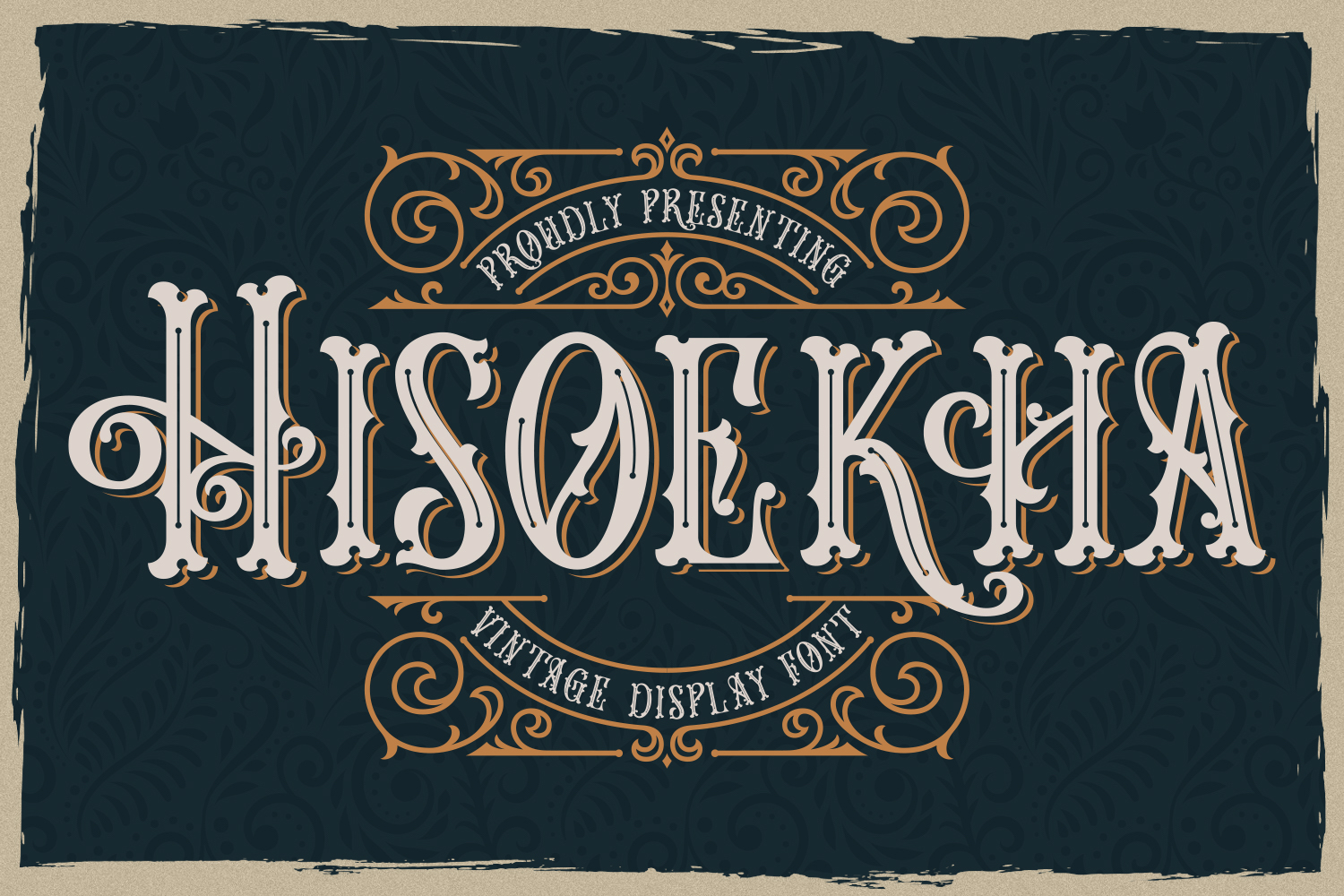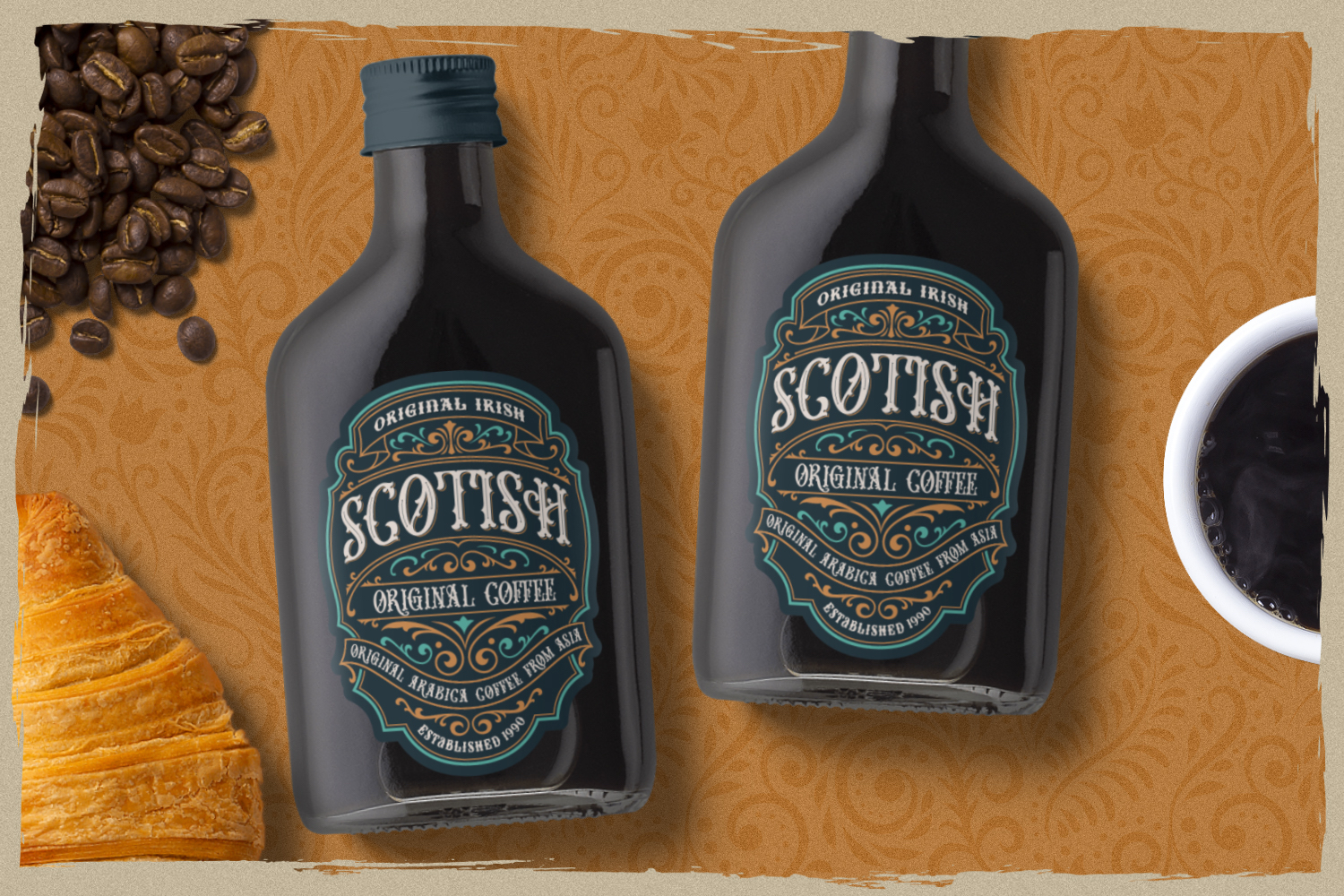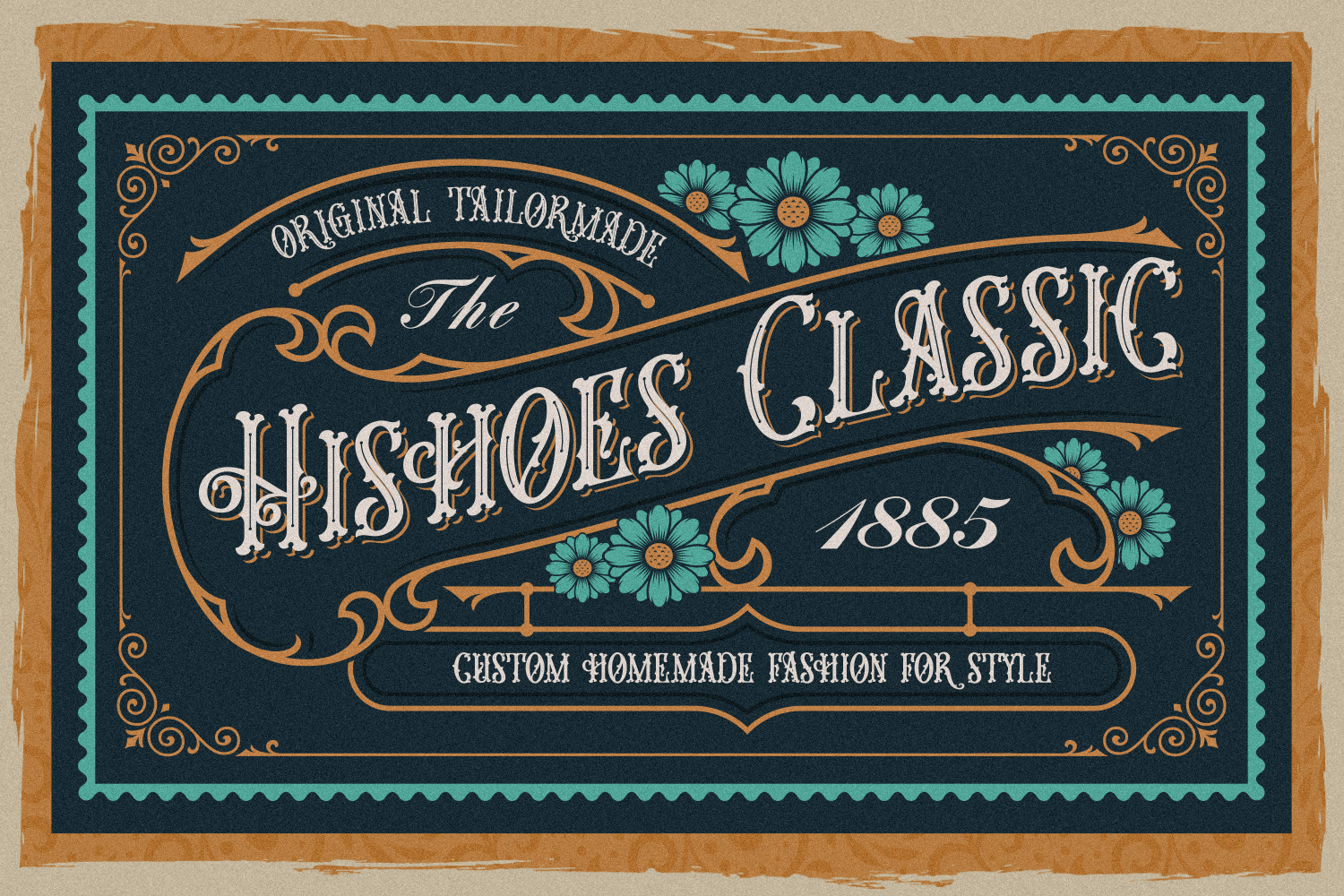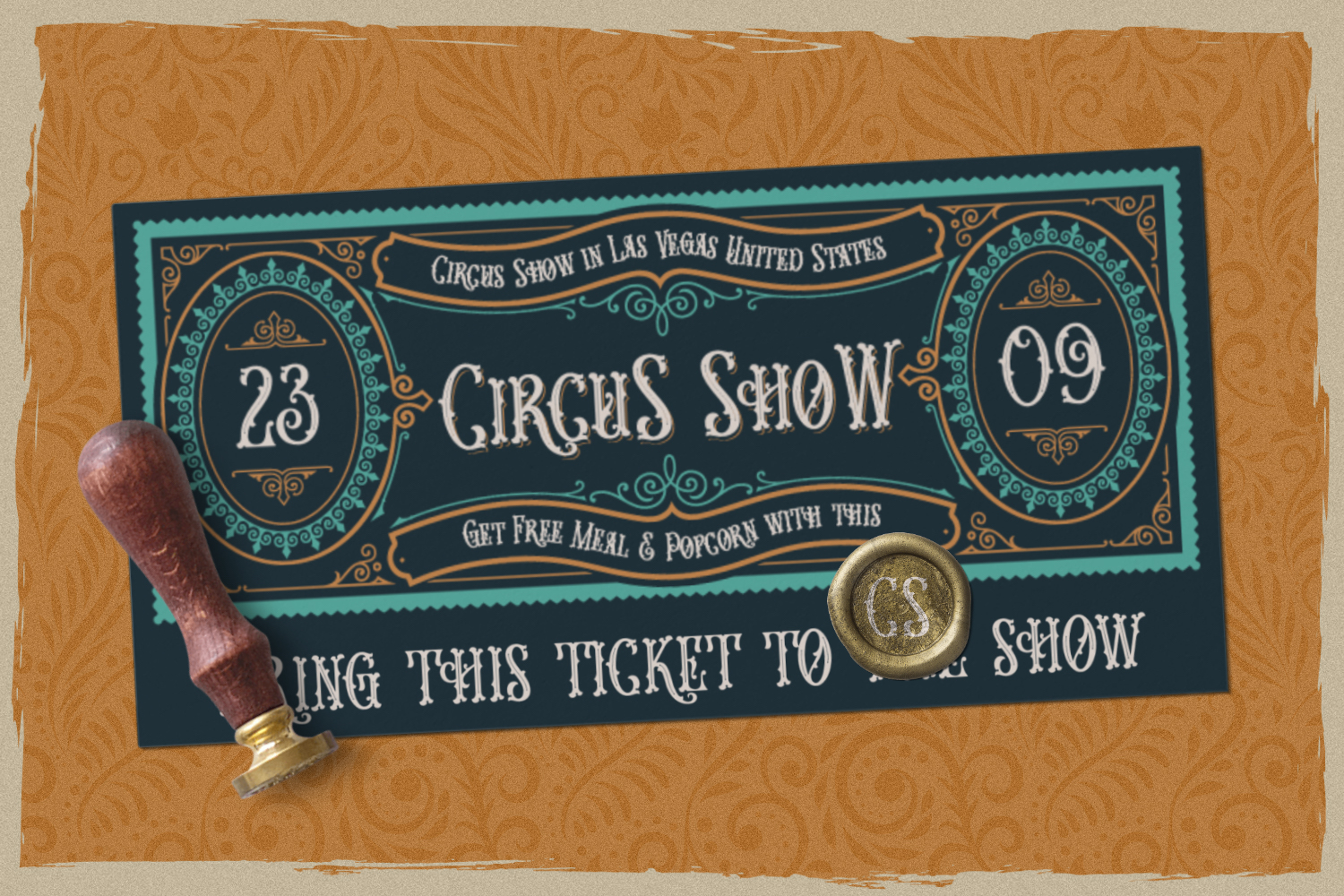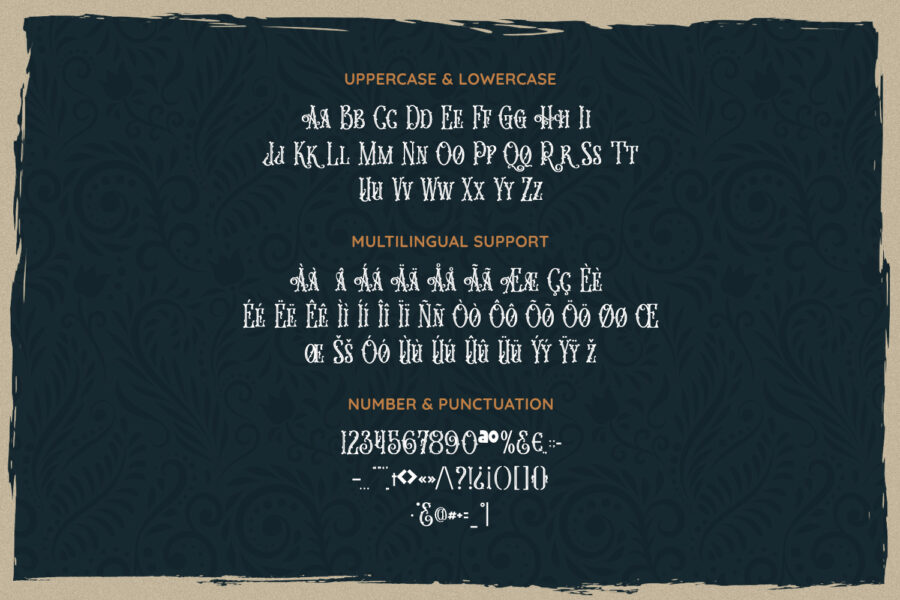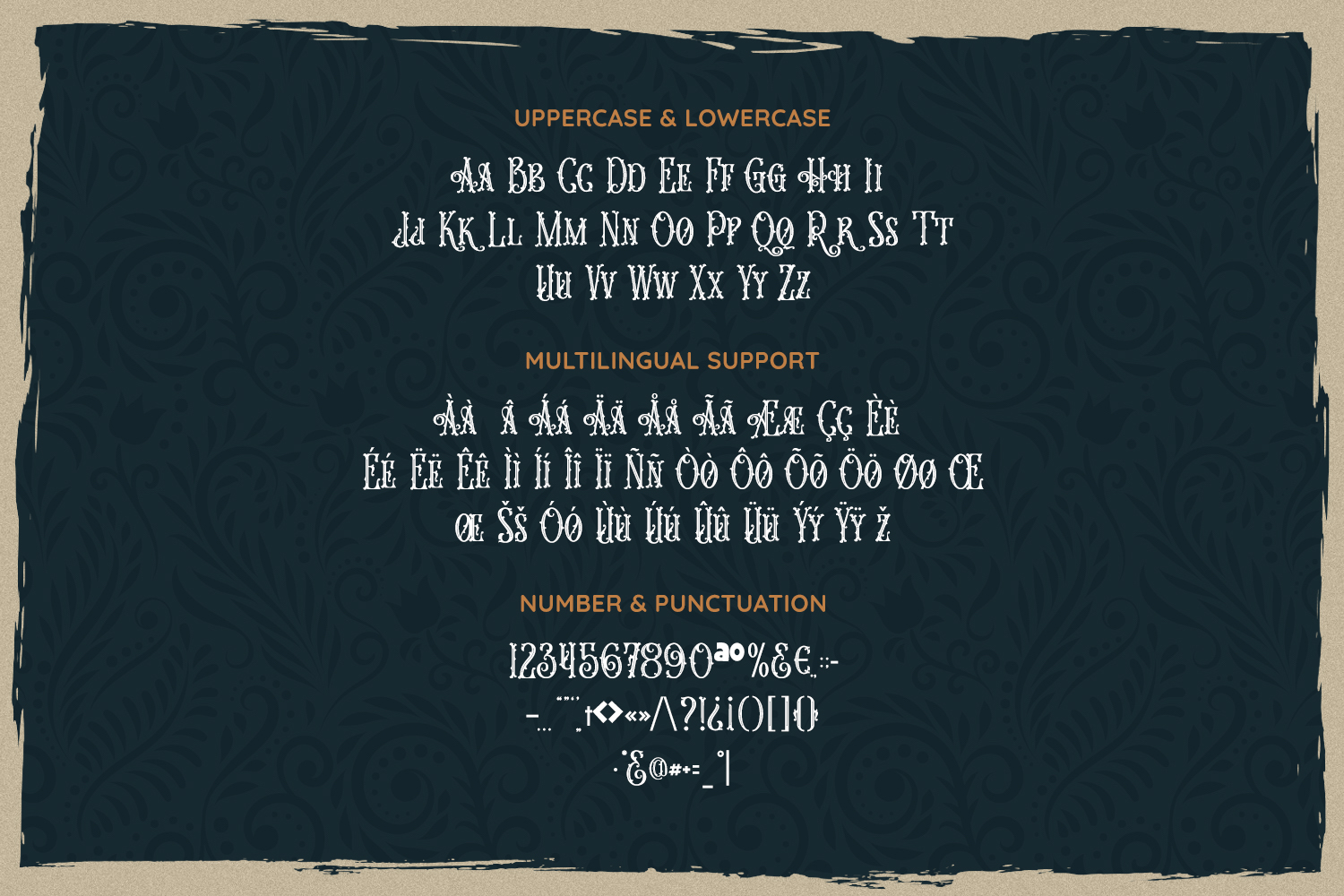
Hisoekha is a bold vintage display font that instantly evokes the charm of classic signage and Victorian aesthetics. With its decorative swashes, ornamental serif strokes, and layered character design, Hisoekha is crafted to deliver strong visual impact for branding, posters, liquor labels, and old-style packaging. The font merges intricate elegance with a rugged antique flair, creating a nostalgic mood without sacrificing readability.
Perfect for designs requiring a touch of historical flair, Hisoekha supports multilingual characters, uppercase and lowercase sets, as well as a variety of punctuation and symbols. It’s an ideal choice for vintage logo design, coffee packaging, bar signage, and theatrical promotions. Whether for modern retro revival or authentic period pieces, this typeface captures timeless personality.